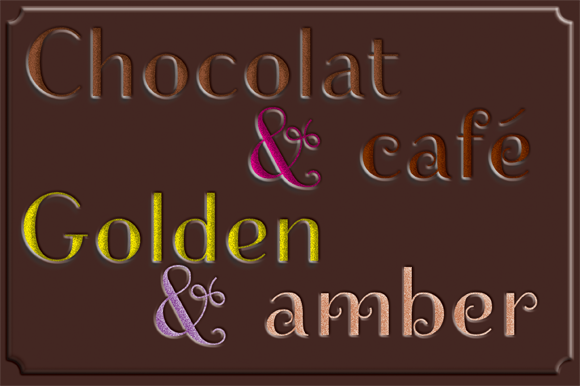
Indulge in the Sweetness of Design
Have you ever found yourself daydreaming about the perfect typography to pair with your favorite dessert? For designers, the quest for the perfect font can be a sweet and elusive dream. But what if we told you that your search is over?
Introducing Friandise Font, a stunning decorative font that’s as elegant as it is indulgent. Inspired by all things chocolate, Friandise Font is the perfect combination of sweet and sophistication. Whether you’re designing a dessert menu, a chocolate-themed website, or simply want to add a touch of whimsy to your designs, Friandise Font is the perfect choice.
As a designer, you know that the right font can make all the difference. Friandise Font is a valuable addition to any designer’s toolkit, offering a unique and eye-catching way to express your creativity. So why settle for a boring, generic font when you can indulge in the sweetness of Friandise Font?
Friandise Font Key Features
- Size: Multi-style font with 10 font styles, ranging from Light to Bold
- Resolution: Supports high-resolution displays (up to 10,000 DPI)
- Language Support: Covers over 100 languages, including Latin, Cyrillic, and Greek alphabets
- Unique Characteristics: Features a unique, modern design with clean lines and geometric shapes
- Character Set: Includes a wide range of characters, including punctuation marks, numbers, and symbols
Friandise Font Review
At first glance, the Friandise Font seems like a promising choice for your next design project. Here’s a breakdown of what I like and dislike about it:
- Unique design: The Friandise Font has a distinct, elegant look that sets it apart from other fonts.
- High legibility: The font is easy to read, even at smaller sizes, making it suitable for a wide range of applications.
- Neutral tone: The font’s neutral tone makes it versatile and easy to pair with other fonts and design elements.
- Limited expressiveness: While the font is elegant, it may lack the expressiveness and personality needed for certain design projects.
- Not ideal for bold statements: The font’s neutral tone and delicate design make it less suitable for making bold statements or conveying strong emotions.
Overall, the Friandise Font is a solid choice for projects where a clean, elegant look is desired. However, it may not be the best fit for projects that require a bolder or more expressive font. With the right design approach, the Friandise Font can be a great addition to your design arsenal.
Friandise Font is ideal for:
- Creative projects, such as graphics, logos, and branding materials.
- Designing menus, labels, and other food-related materials.
- Creating invitations, greeting cards, and other celebratory materials. Alternatives to Friandise Font
- Choose a pastel color scheme to match the bakery’s theme.
- Use the Friandise Font for the menu headings and titles.
- Combine the font with playful illustrations of baked goods and desserts.
- Add a sprinkle of glitter or texture to give it a whimsical touch.
- Pair the Friandise Font with a bold, cursive font for contrast.
- Use watercolor-style illustrations to add a dreamy, ethereal quality.
- Experiment with different font sizes and colors to create visual hierarchy.
- Choose a luxurious paper or cardstock to match the wedding’s theme.
- Use the Friandise Font for the invitation headings and titles.
- Combine the font with gold or silver foil accents and intricate designs.
- Add a ribbon or lace trim to give it a romantic touch.
- Pair the Friandise Font with a classic, serif font for contrast.
Creative Projects Using Friandise Font
This project involves creating a menu board for a whimsical bakery that uses the Friandise Font to add a touch of elegance and sophistication.
To use the Friandise Font in this project:
Project 2: Luxury Wedding Invitations
This project involves creating luxury wedding invitations that use the Friandise Font to add a touch of sophistication and elegance.
To use the Friandise Font in this project: